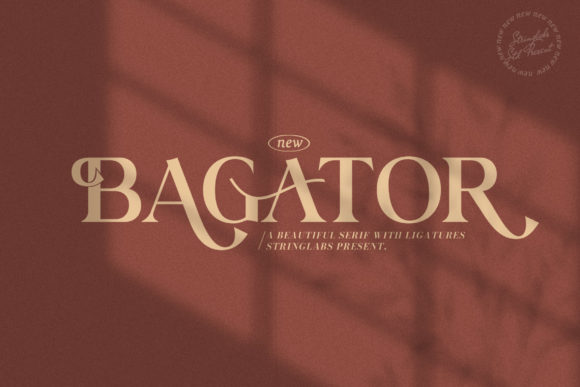
Journey into the world of Bagator, a serif font family that radiates assertiveness and distinction. Crafted by the ingenious minds at StringLabs, Bagator captivates with its innate elegance and simplicity, seamlessly adapting to a kaleidoscope of design concepts, ranging from the formal to the informal.
Bagator possesses an extraordinary ability to elevate your designs to new heights, effortlessly commanding attention with its captivating presence. Its meticulously crafted serifs exude confidence, while its graceful curves lend a touch of sophistication that is both timeless and alluring. Each character in the Bagator family is a testament to precision and artistry, ensuring that your messages and creations leave a lasting impression.
Immerse yourself in the versatility of Bagator, a font family that effortlessly adapts to your creative vision. Whether you seek to create striking titles, captivating logos, or elegant body text, Bagator rises to the occasion, delivering exceptional results that will leave you spellbound. Its innate versatility makes it the perfect choice for a myriad of projects, from branding and marketing materials to website design and social media graphics.
With Bagator, the possibilities are limitless. Its carefully balanced proportions and refined details ensure that your designs exude professionalism and polish, leaving a lasting impression on your audience. Experience the transformative power of Bagator, a font family that will undoubtedly become your go-to choice for creating designs that captivate and inspire.